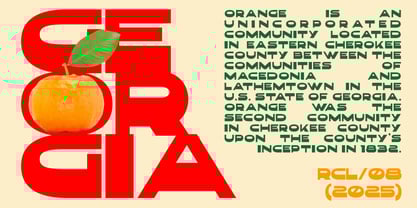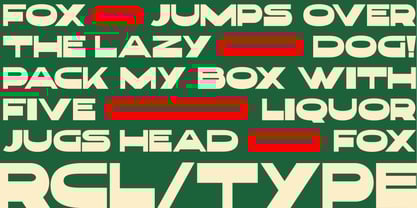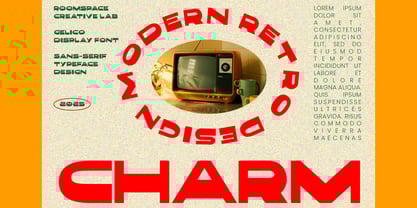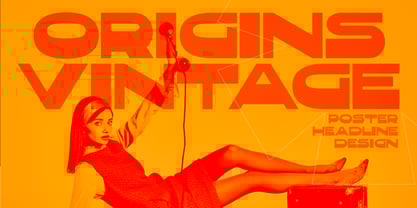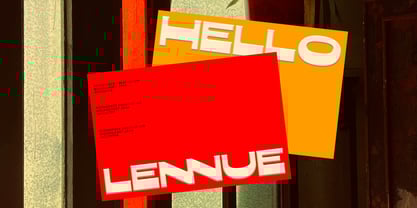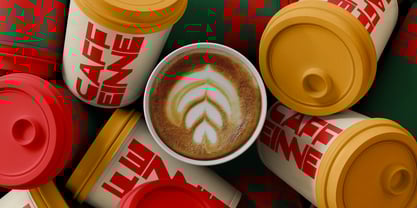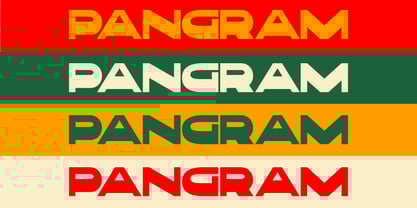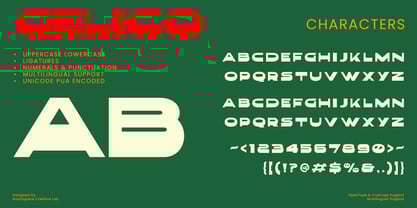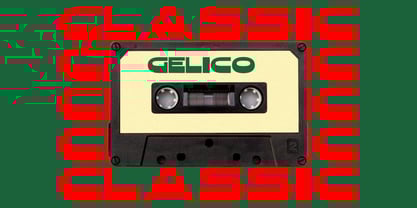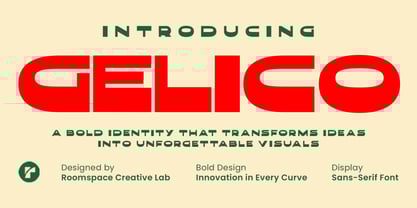
Gelico
by Jafar07
The Gelico Font Family was designed by Bakhrudin Ja'far and published by Jafar07. Gelico contains 4 styles.
Gelico is a bold geometric display font designed to make a strong statement. With its heavy weight and clean shapes, Gelico is perfect for projects that demand attention and unforgettable visuals. Its confident look is ideal for modern branding and creative headlines.
Crafted with precision, Gelico balances boldness and readability. Its geometric construction ensures consistent spacing, smooth kerning, and versatility across different design applications. The font includes uppercase, lowercase, numbers, and multilingual support, making it reliable for professional use.